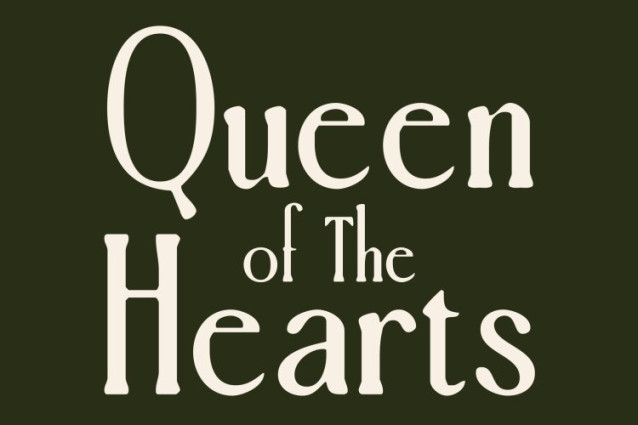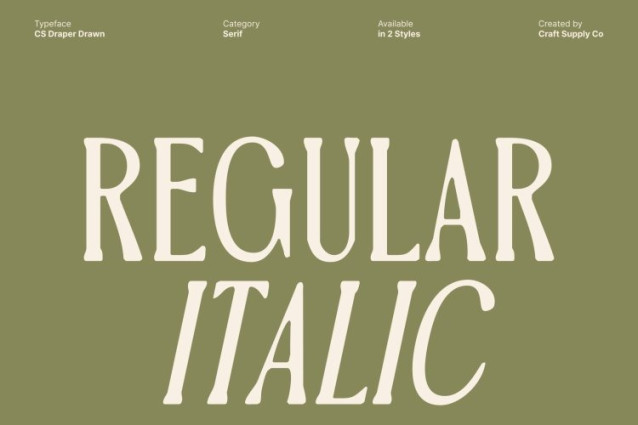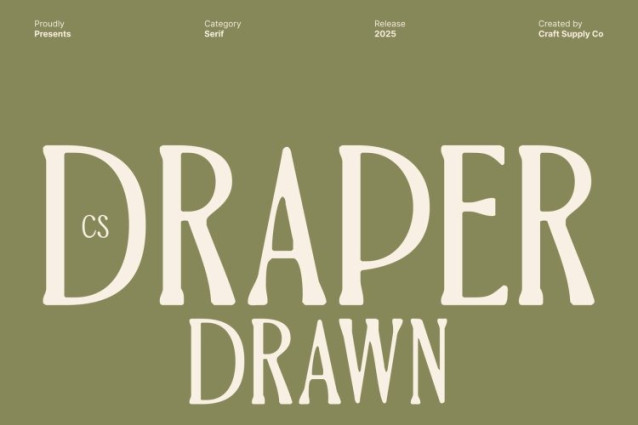
CS Draper Drawn Font
CS Draper Drawn Font – This font is a modern serif font designed with slim proportions and elongated serifs, creating a silhouette that feels elegant, poised, and meticulously refined. Its long, graceful structure enhances visual sophistication, making it ideal for polished and high-end design work.
Hand-Drawn Details for Authentic Artistic Character
What sets this font apart is its subtle handmade texture. The drawn details add warmth, depth, and soul bringing a touch of artistic imperfection that enriches the clean serif foundation. This natural, handcrafted feel gives your typography a unique personality without sacrificing refinement.
Elegance and Professionalism in Every Letterform
From its balanced contrast to its carefully shaped serifs, this font exudes professionalism. It carries a modern luxury spirit suited for upscale design, visually communicating trust, beauty, and timeless sophistication. Its flowing rhythm and elongated structure enhance readability while maintaining a distinct editorial charm.
Perfect for Luxury Branding, Editorials, and High-End Design
This font shines in applications that require a premium look luxury branding, fashion identity, elegant packaging, book titles, magazines, and refined promotional materials. Its blend of modern structure and artistic texture ensures your designs feel exclusive, distinguished, and unforgettable